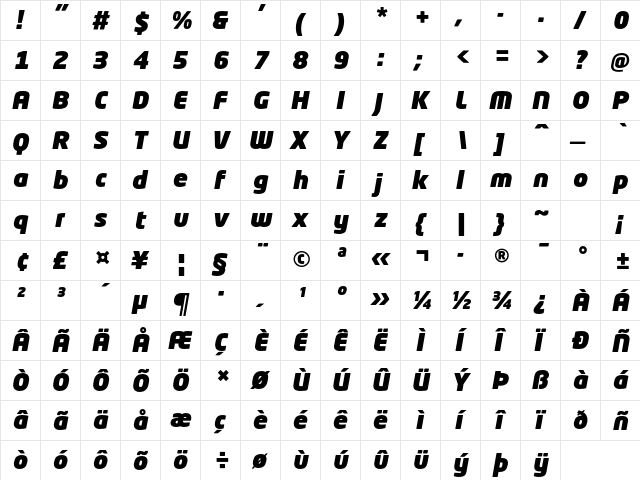
Neo Tech Std Ultra Italic
Design Context for Neo Tech Std Typeface
Neo Tech Std channels digital-age aesthetics through its sharp, structured letterforms — ideal for brands that want to signal innovation. The dynamic lean of this cut emphasises speed and emphasis in any layout.
Pro Tip: Use Neo Tech Std in combination with a neutral sans for body text. Let it define the brand voice in headlines while keeping reading comfortable elsewhere.